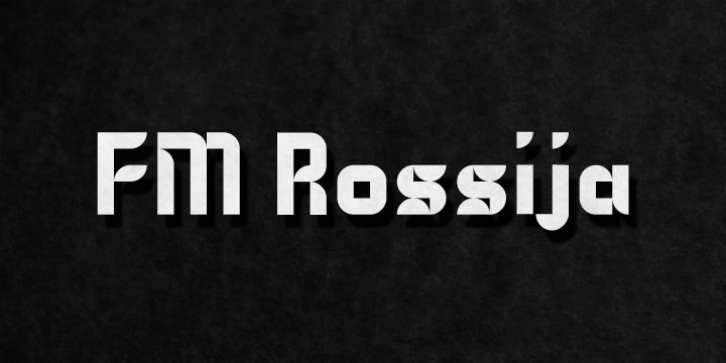
FM Rossija was designed by Elwin Berlips and published by FontMeister. FM Rossija contains 1 style.
'Rossija' is inspired by russian typographic designs. It's bold look makes a perfect font for the use of titles. You can use these fonts to create posters, greeting cards, scrapbooks, CD labels, T-shirts, coffee mugs, digital videos websites and banners.